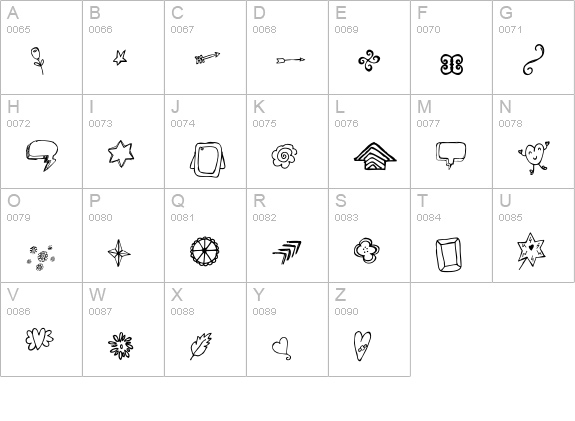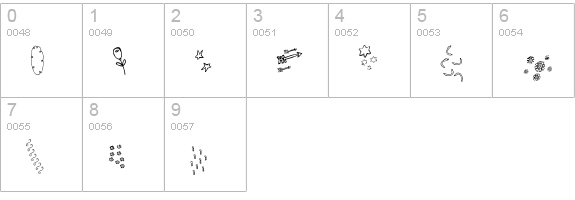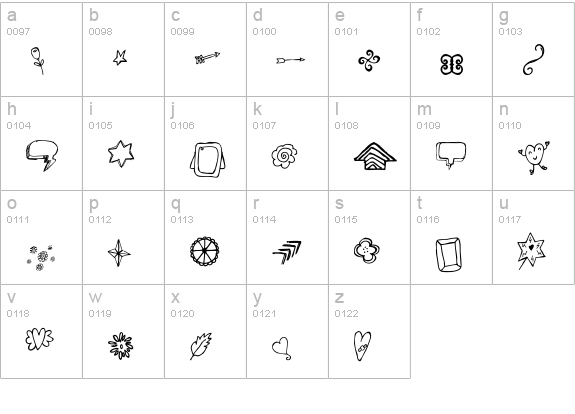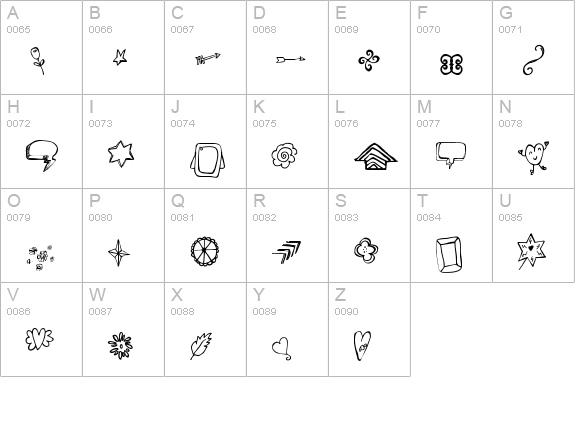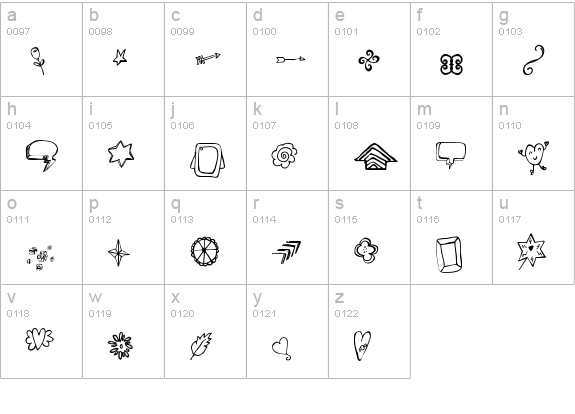
Mrs Doodle & Kids Font Details
Mrs Doodle & Kids font is a whimsical and playful typeface that is perfect for adding a touch of fun to your design projects. This delightful font features charming doodles and cute illustrations that will bring joy to any artwork. Whether you are creating invitations, greeting cards, or children's books, Mrs Doodle & Kids font will surely captivate your audience with its cheerful and lighthearted vibe. The best part about Mrs Doodle & Kids font is that it is completely free to download at FontsMarket.com. Yes, you read that right! You can easily get your hands on this lovely font without spending a penny. So what are you waiting for? Add a cheerful and creative touch to your designs with Mrs Doodle & Kids font today!